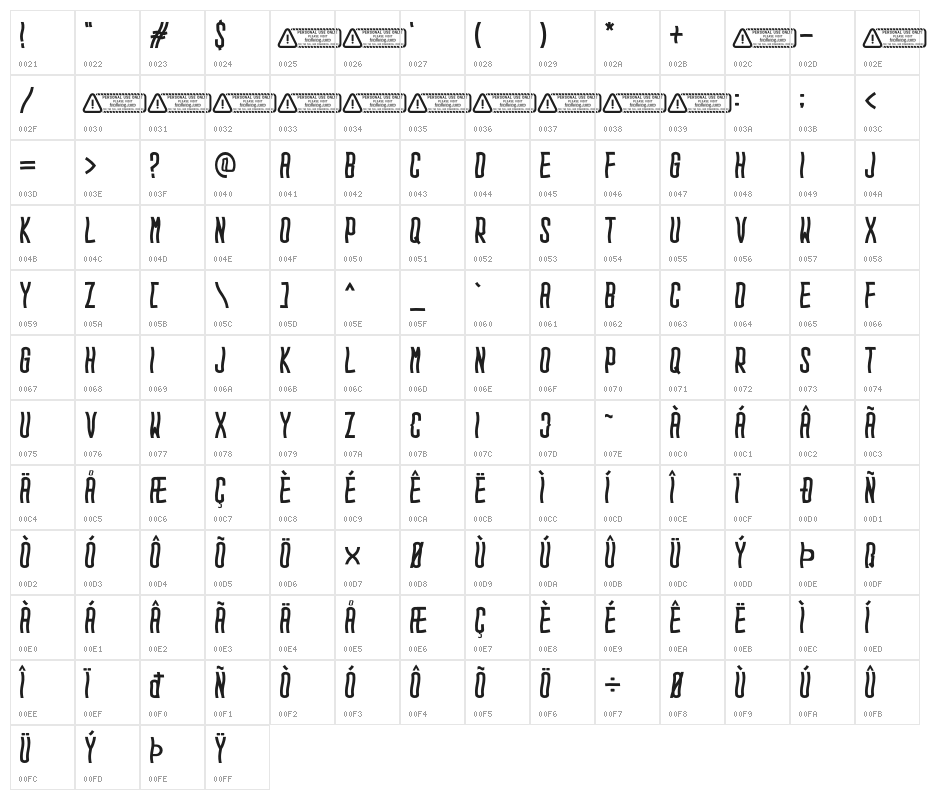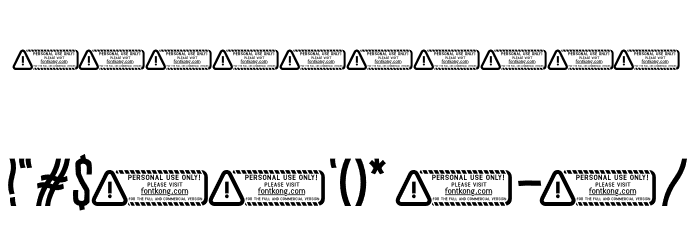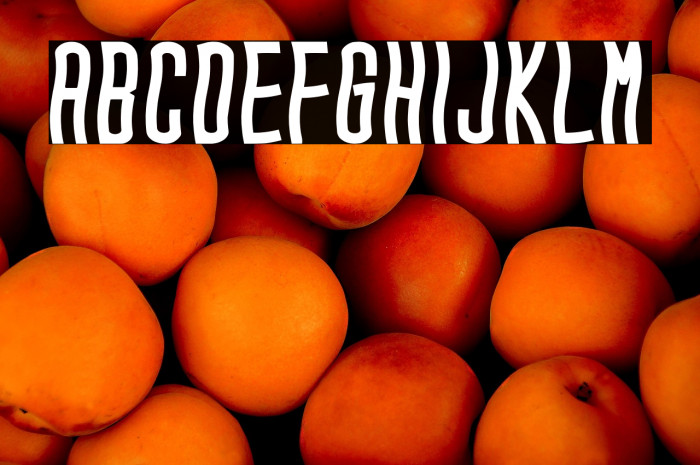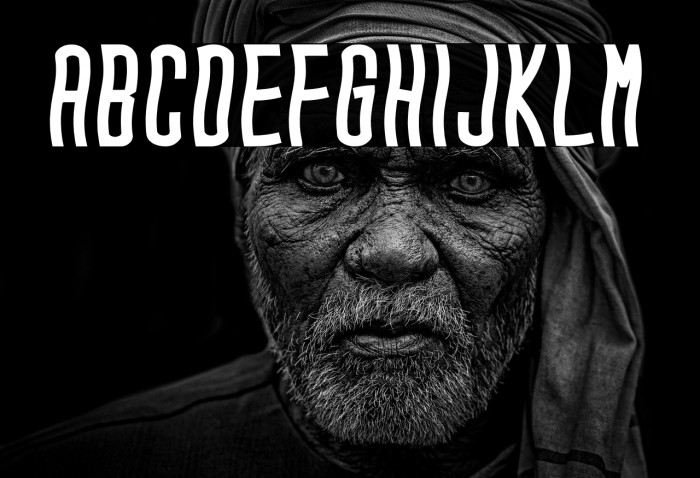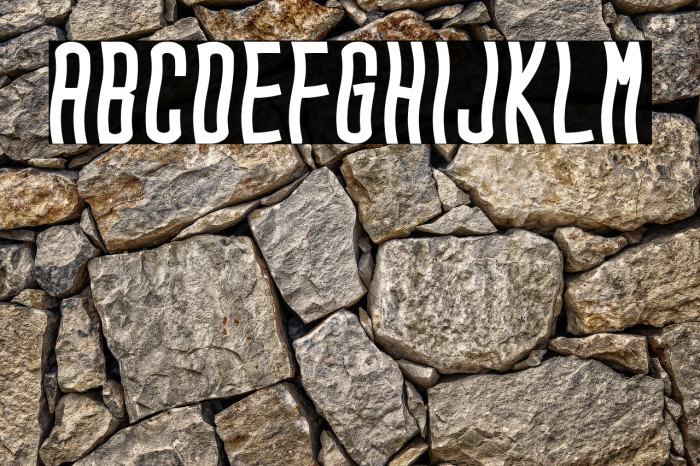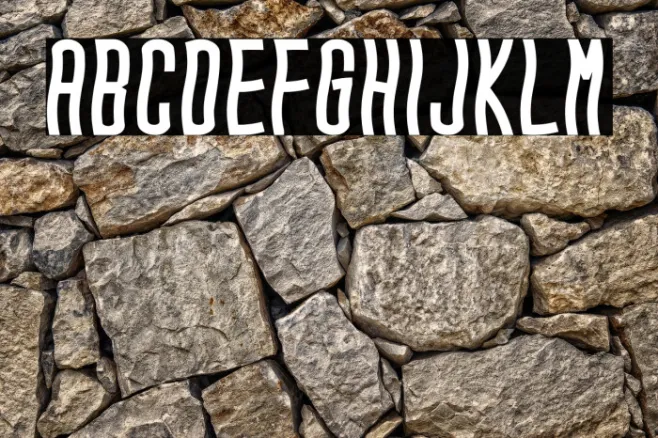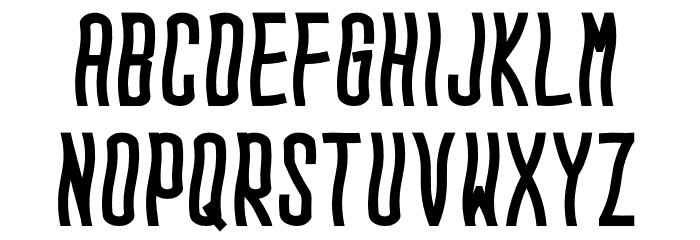
Seghoro Font
Seghoro Description
This font features a bold and dynamic design with elongated, slightly curved strokes that give it a sense of movement and energy. The characters are tall and narrow, creating a condensed appearance that is both modern and striking. The uppercase letters maintain a consistent height, while the lowercase letters are slightly smaller, maintaining the same width and style. The numbers and special characters follow the same design principles, ensuring uniformity across all glyphs. This font's unique style makes it suitable for attention-grabbing headlines and logos.
| Proposed Projects | Ideal for use in branding, advertising, posters, and any project requiring a bold, modern typeface. |